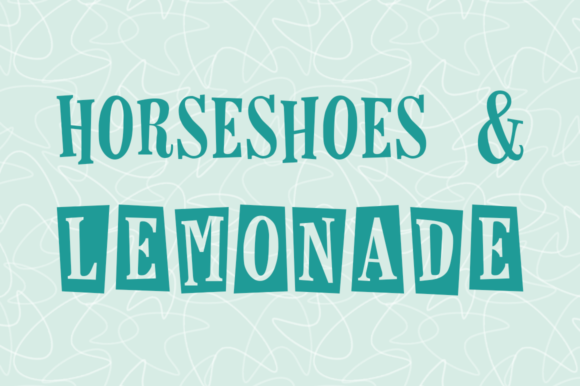
Behold the captivating Horseshoes & Lemonade font, a timeless serif creation by laurenashpole, that evokes the playful spirit of the fifties and sixties and adds a touch of nostalgia to your designs. With its bold and angular structure, this font is bound to make a statement in your projects.
Step into a world of retro aesthetics with Horseshoes & Lemonade, where sharp lines and playful angles dance together in perfect harmony. Each letter is crafted to perfection, featuring exaggerated angles and distinctive square borders that give your designs a unique and memorable character.
Unleash your creativity with the versatile Horseshoes & Lemonade font family, which includes two distinct variations. Choose the classic version adorned with borders for a bold and eye-catching look, or opt for the minimalist version with borderless letters for a cleaner and more refined aesthetic. The possibilities are endless with this dynamic duo.
The lowercase characters of Horseshoes & Lemonade add an unexpected twist to your designs. With their distinctive shapes and variations, these lowercase letters bring a touch of individuality and charm to your projects, making them stand out from the crowd.
Harness the power of Horseshoes & Lemonade and embark on a creative journey like no other. This remarkable font will transform your designs, adding a touch of nostalgia and vintage flair. It's the perfect choice for logos, posters, branding projects, packaging, and any creative endeavor where you want to leave an unforgettable impression.